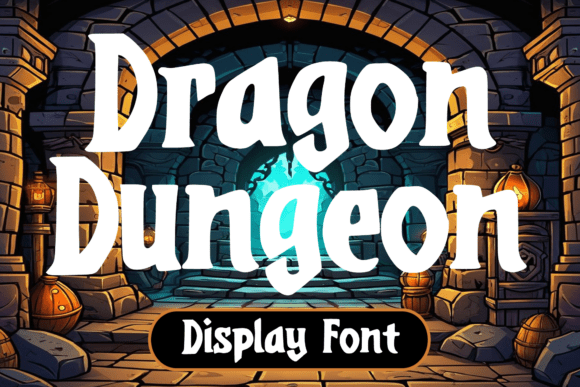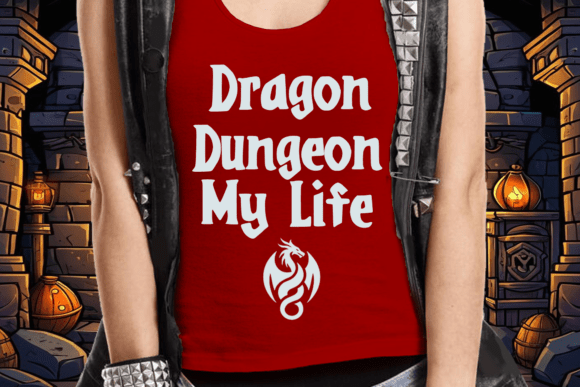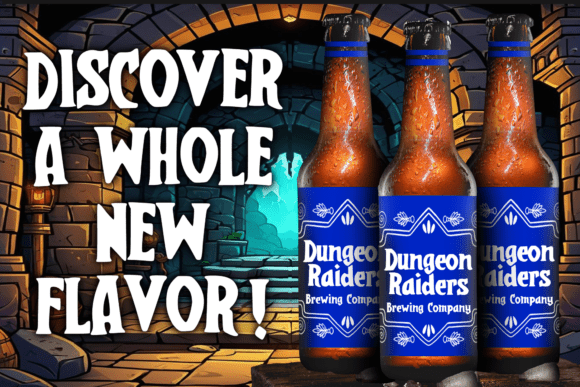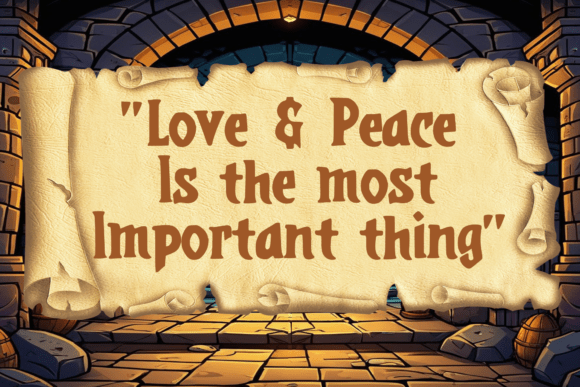
Dragon Dungeon Font: A Playful Display Font for Fantasy Designs!
About the Dragon Dungeon Font
The wait is over! The incredible Dragon Dungeon Font is now available for your design toolkit. Dragon Dungeon is a fun and playful antique medieval-themed font, inspired by 90s tabletop games and fantasy cartoons. You can use it for anything ranging from t-shirts, kids’ book designs, game designs, and greeting cards to stickers and posters, or anything that needs a middle-ages vibe. Fall in love with its incredibly versatile style and use it to create lovely designs!
Dragon Dungeon excels in display applications such as headlines, posters, and logos where its playful character shines. It’s ideal for projects targeting a younger audience or those with a fantasy, gaming, or whimsical theme. However, its ornate details make it less suitable for body text or UI elements requiring high readability. Avoid using it for long paragraphs or small sizes.
This font pairs well with clean sans-serif fonts like Open Sans or Lato for a balanced contrast, or with a more geometric sans-serif like Futura for a modern twist. For a more cohesive medieval feel, consider pairing it with a classic serif like Garamond or a slightly more playful script font like Edwardian Script.
Dragon Dungeon possesses a bold, friendly personality, conveying a sense of adventure and fun. Brands focusing on children’s entertainment, tabletop games, or fantasy-themed products would find it particularly effective.
Dragon Dungeon Font Usage Examples
Dragon Dungeon Font Example